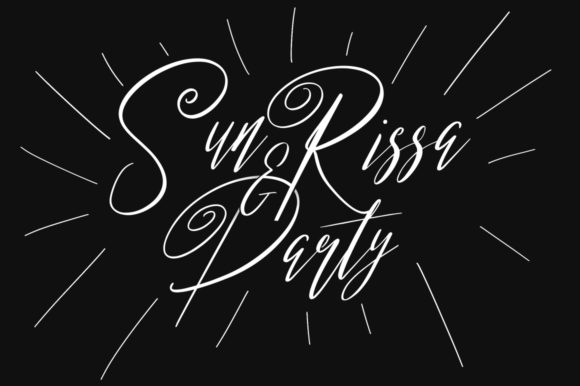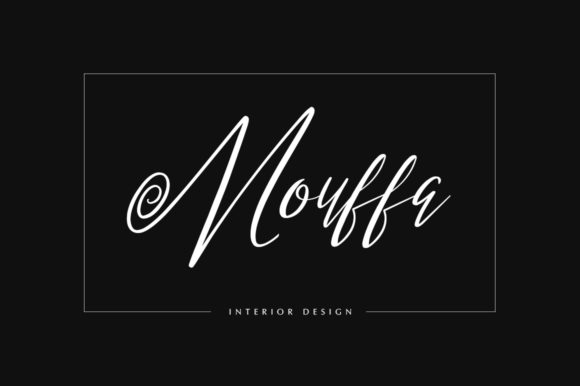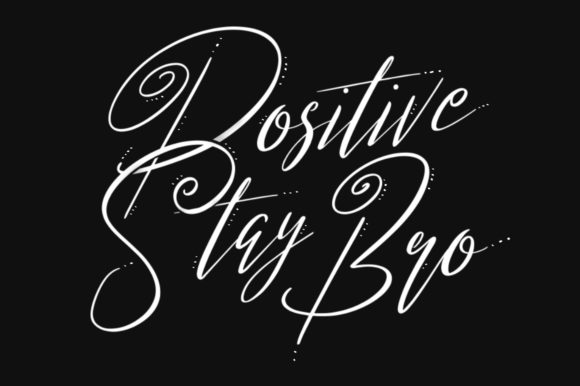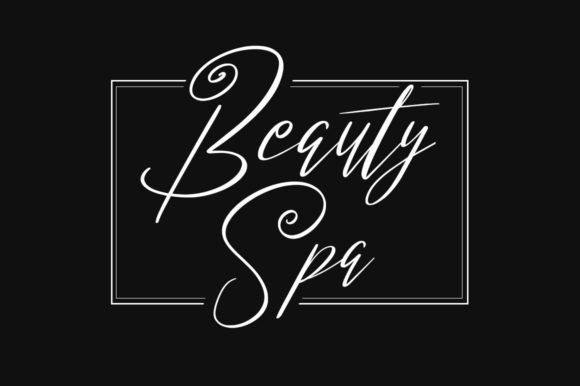
Unleash Your Creativity with Afattal Font
There’s something magical about the moment when an idea strikes, and you know exactly how you want to bring it to life. Perhaps it’s a bold logo concept, a whimsical branding design, or a heartfelt quote that needs to be set in motion. Whatever it is, the right font can make all the difference. And that’s where the Afattal Font comes in – a lovely and timeless handwritten font that’s sure to captivate your audience.
Whether you’re a seasoned designer or just starting out, the Afattal Font is a valuable addition to your toolkit. Its unique and beautiful touch will breathe life into your designs, making them stand out from the crowd. With the Afattal Font, you’ll be able to create eye-catching logos, branding, and quotes that truly reflect your artistic vision.
Afattal Font Key Features
- Font Type: Afattal is a script font, specifically designed for elegant and stylish text representation.
- Character Set: The font includes a wide range of characters, including Latin, Arabic, and other languages, making it suitable for diverse applications.
- Unique Characteristics: Afattal Font features intricate, hand-drawn designs with unique flourishes and ornaments, making it perfect for creative and artistic applications.
Afattal Font Review
As a designer, I was excited to explore the Afattal font. I have to say, it’s a unique and interesting addition to my design arsenal.
- ✨ Customizable font styles: Afattal offers a range of font styles, from bold and playful to elegant and sophisticated. This versatility makes it perfect for various design projects.
- ✨ Wide character set: The font includes a wide range of characters, including international symbols and ligatures, making it suitable for global designs.
- ✨ Smooth curves: The font’s curves are smooth and well-designed, giving it a professional and polished look.
- ⚠️ Limited language support: While Afattal has a wide character set, it may not support some languages or scripts, which could be a limitation for certain design projects.
- ⚠️ Not suitable for small text: The font’s design makes it less readable at small text sizes, which could be a challenge for certain design applications.
Overall, I think Afattal is a solid choice for designers looking for a unique and customizable font. While it has some limitations, its strengths make it a valuable addition to any design library.
For optimal results, use Afattal Font for titles, headings, and emphasis.
Pair Afattal Font with other fonts to create a visually appealing contrast.
Use Afattal Font for creative projects, such as invitations, posters, and social media graphics.
Afattal Font is also suitable for business and professional projects, such as presentations and reports.